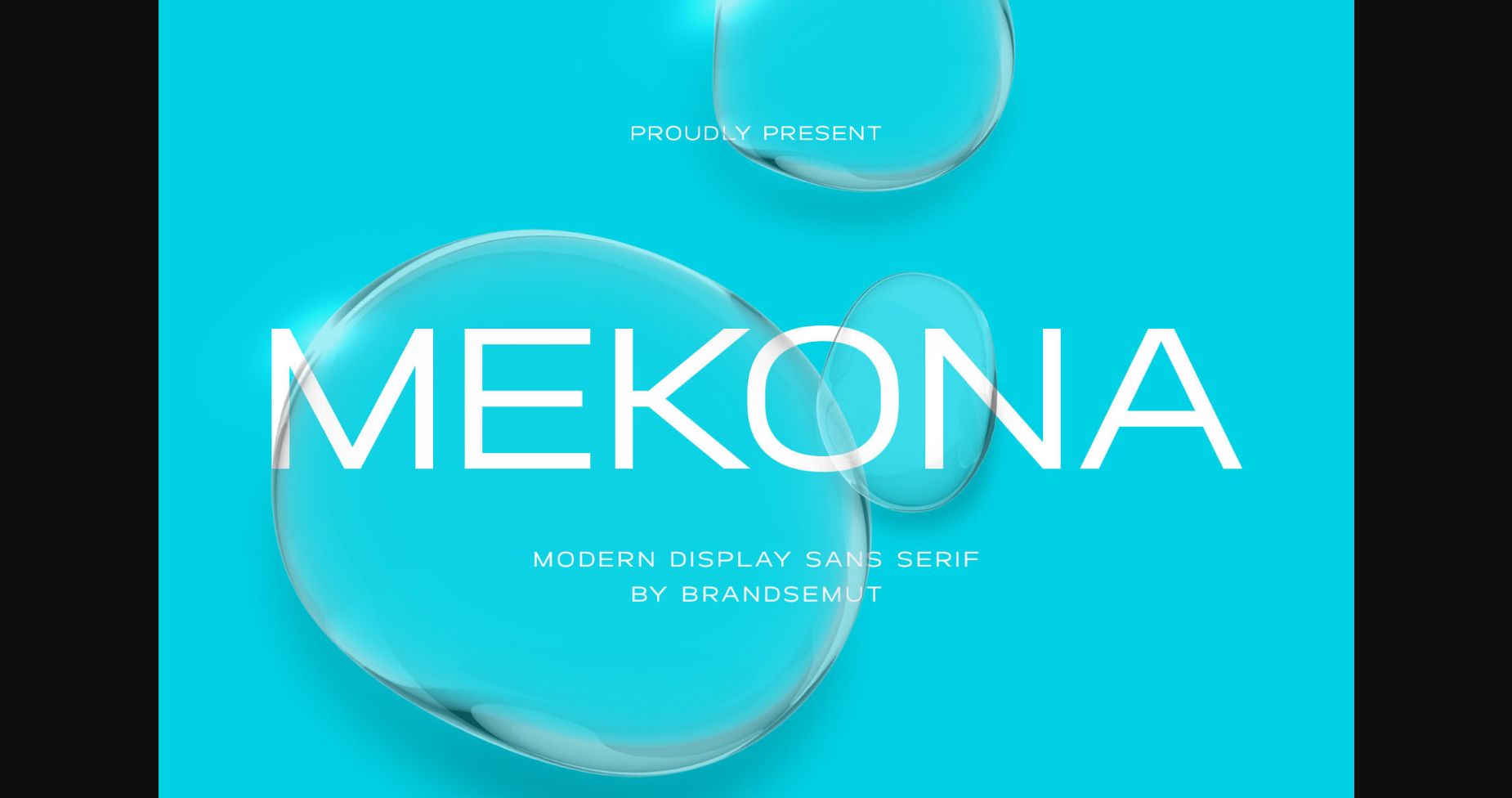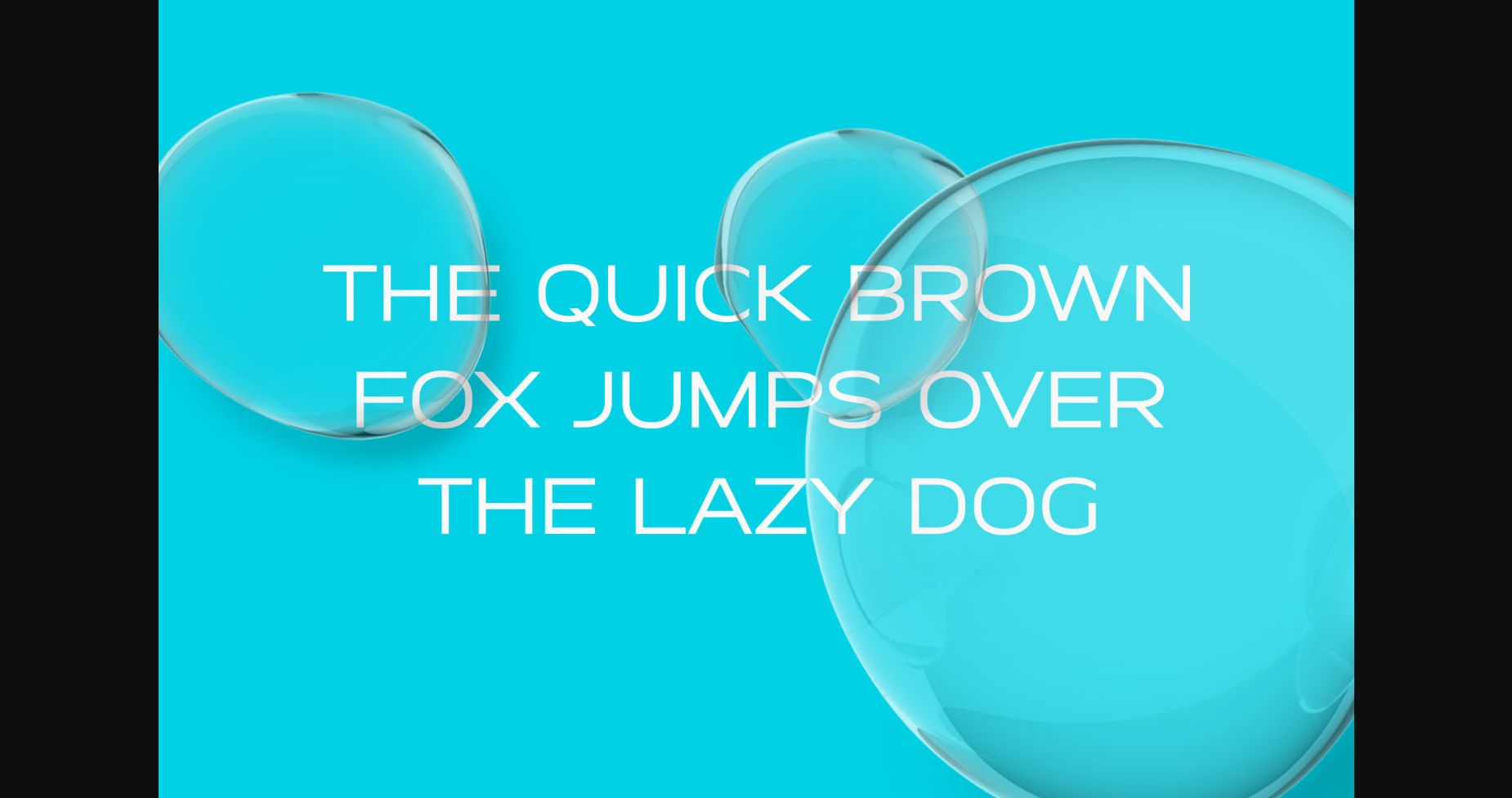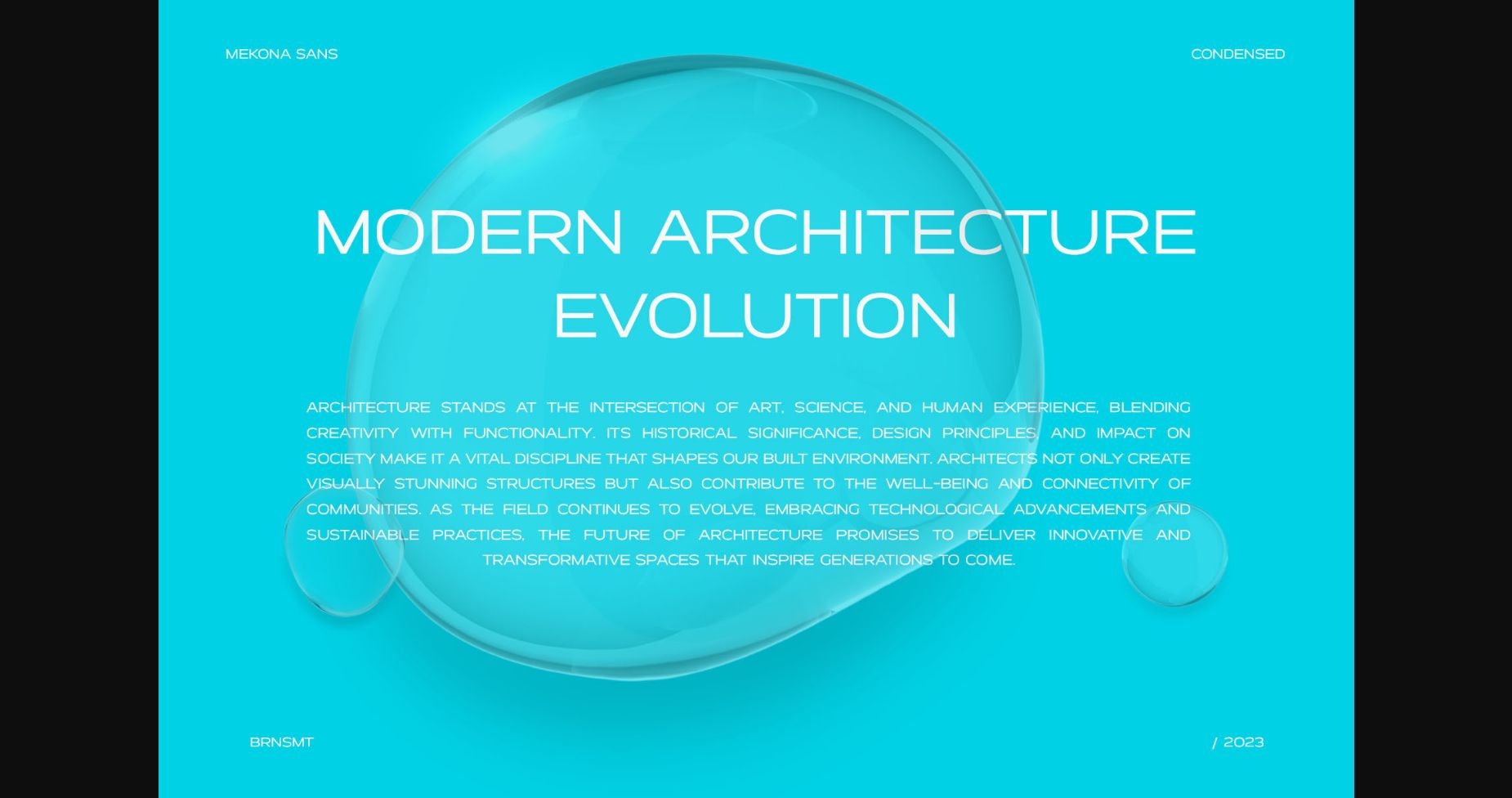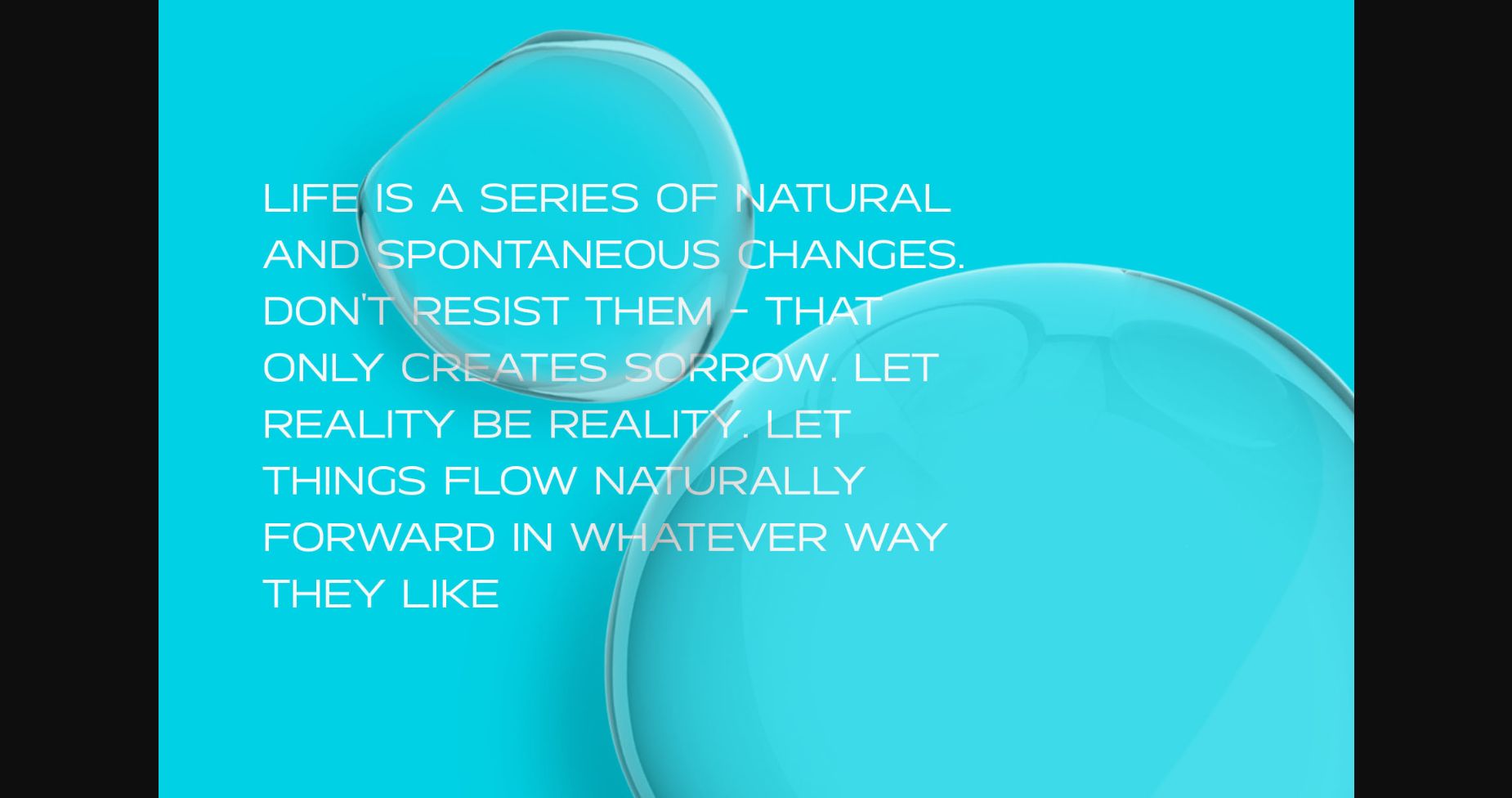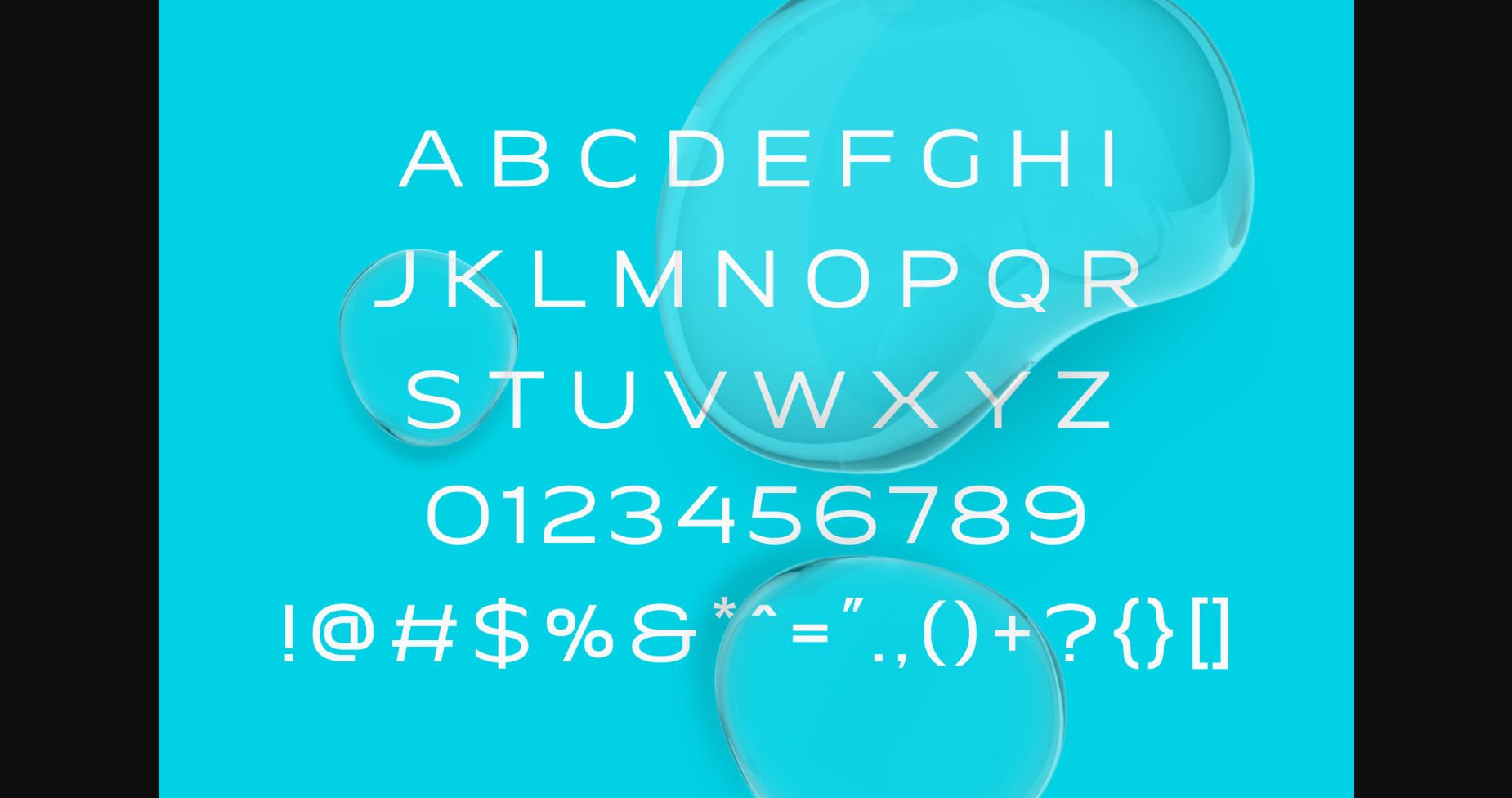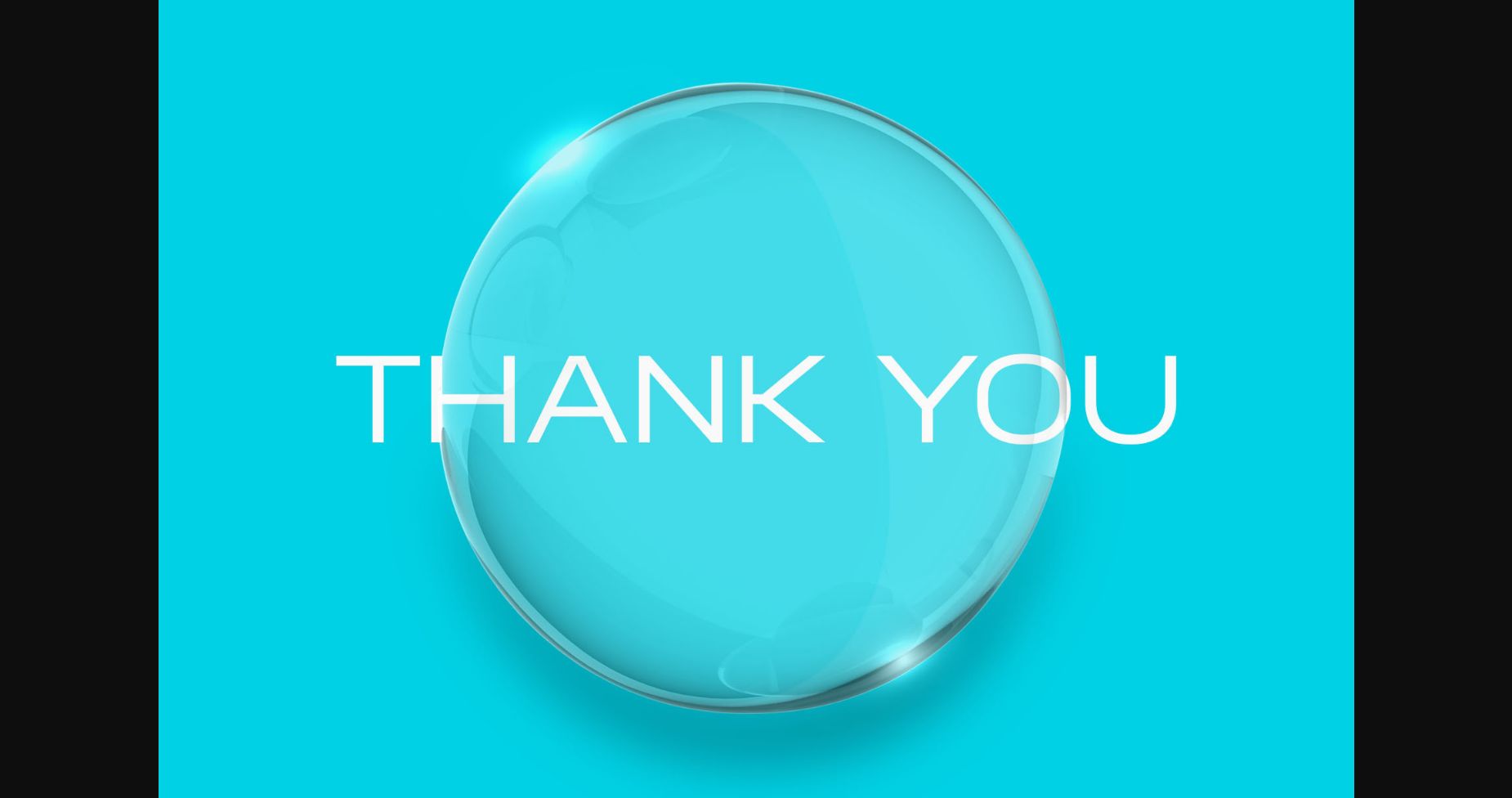
About Mekona Font
Introducing Mekona Modern Display Sans Serif
Mekona is a modern and simple font, best used as a display for headings, logos, branding, magazines, product packaging, and invitations. Mekona comes with clean lines and smooth curves giving any project an extra touch of class.